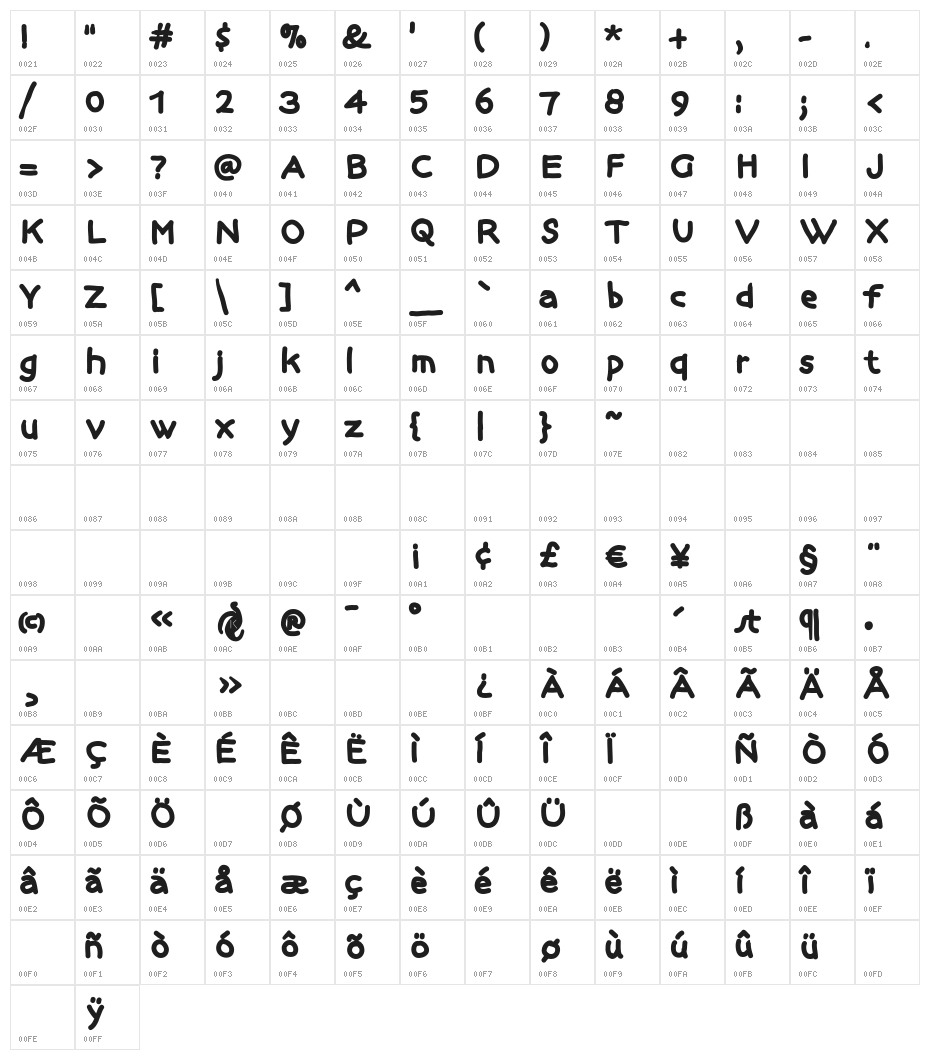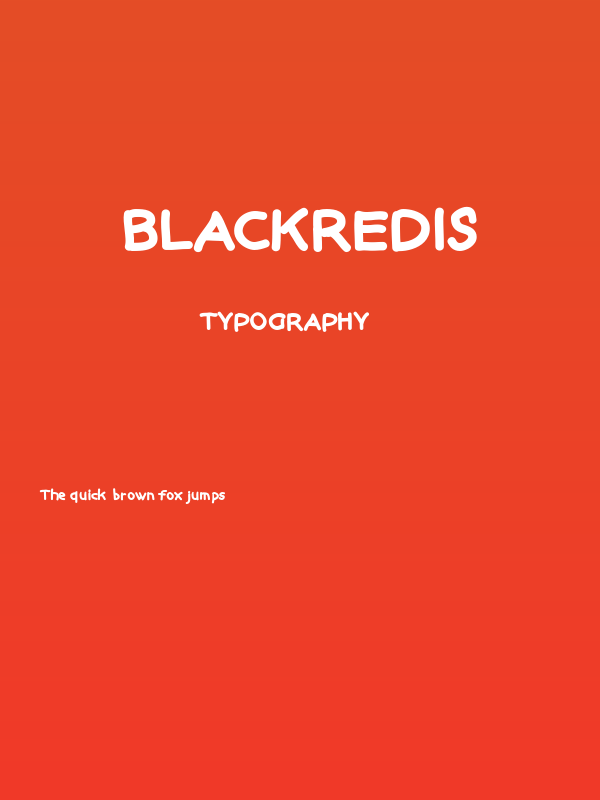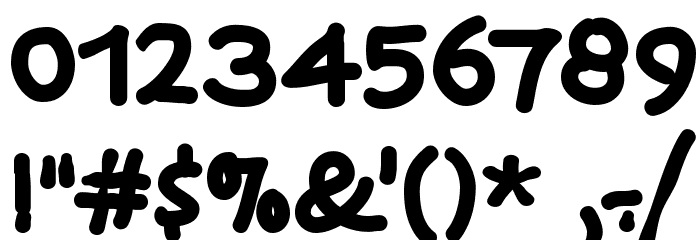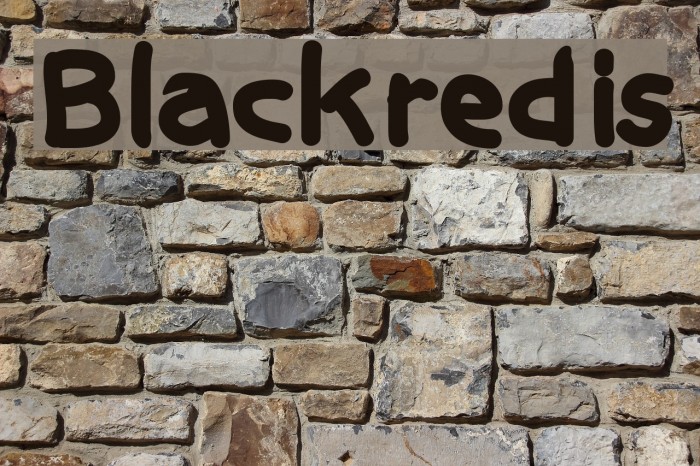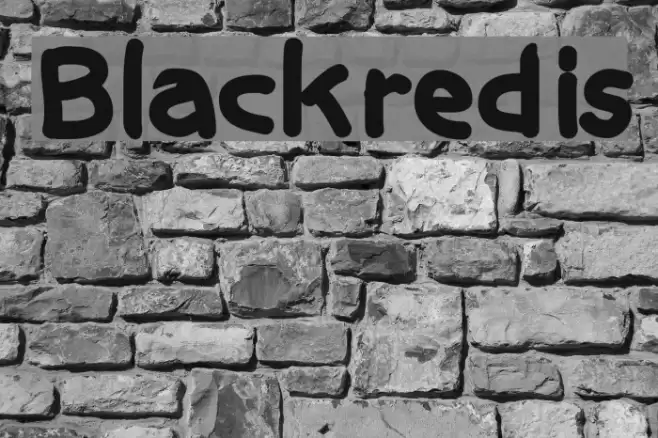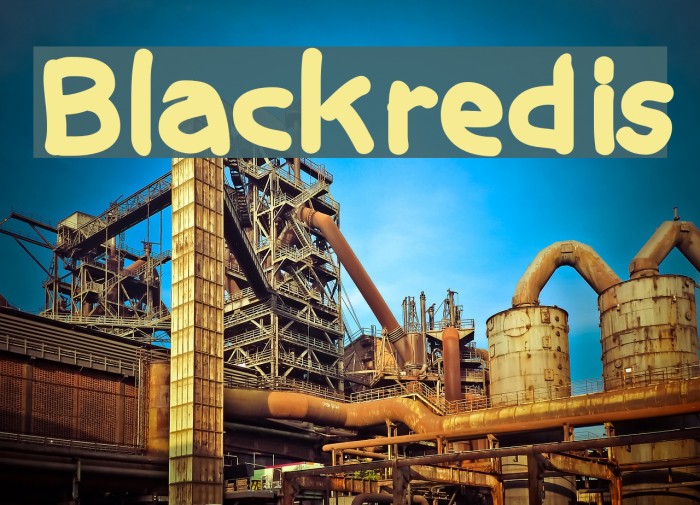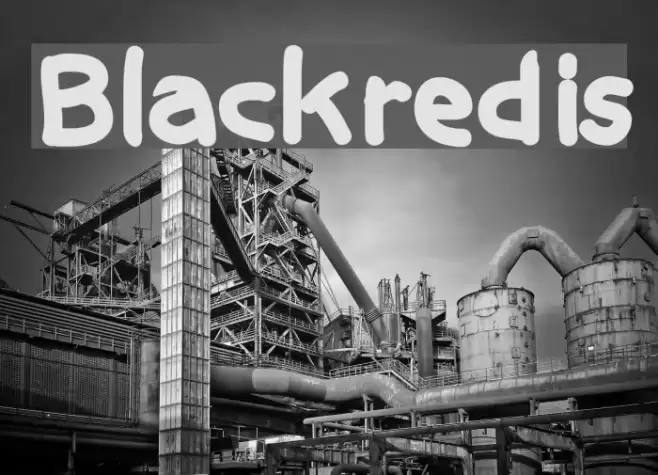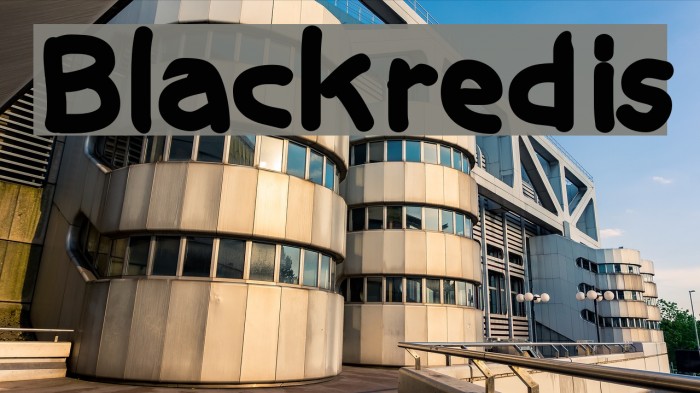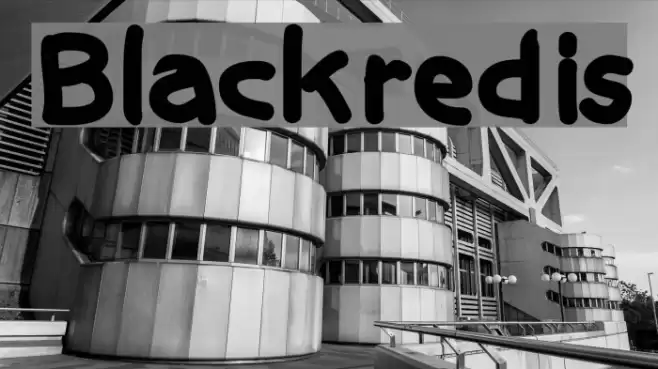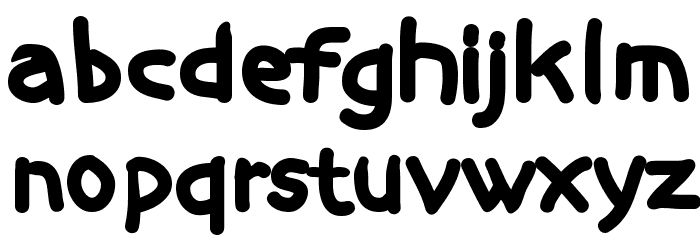
Blackredis Font
Blackredis Description
This font features a playful and bold style with rounded edges and a hand-drawn appearance. The characters are thick and slightly irregular, giving it a casual and friendly look. The uppercase and lowercase letters maintain a consistent style, with a slight slant that adds to its informal charm. Numbers and special characters are designed with the same boldness, ensuring readability and visual impact. The overall design is approachable and suitable for creative projects that require a touch of whimsy.
| Overall Style | Playful |
| Proposed Projects | Ideal for children's books, playful branding, casual invitations, and creative posters. |